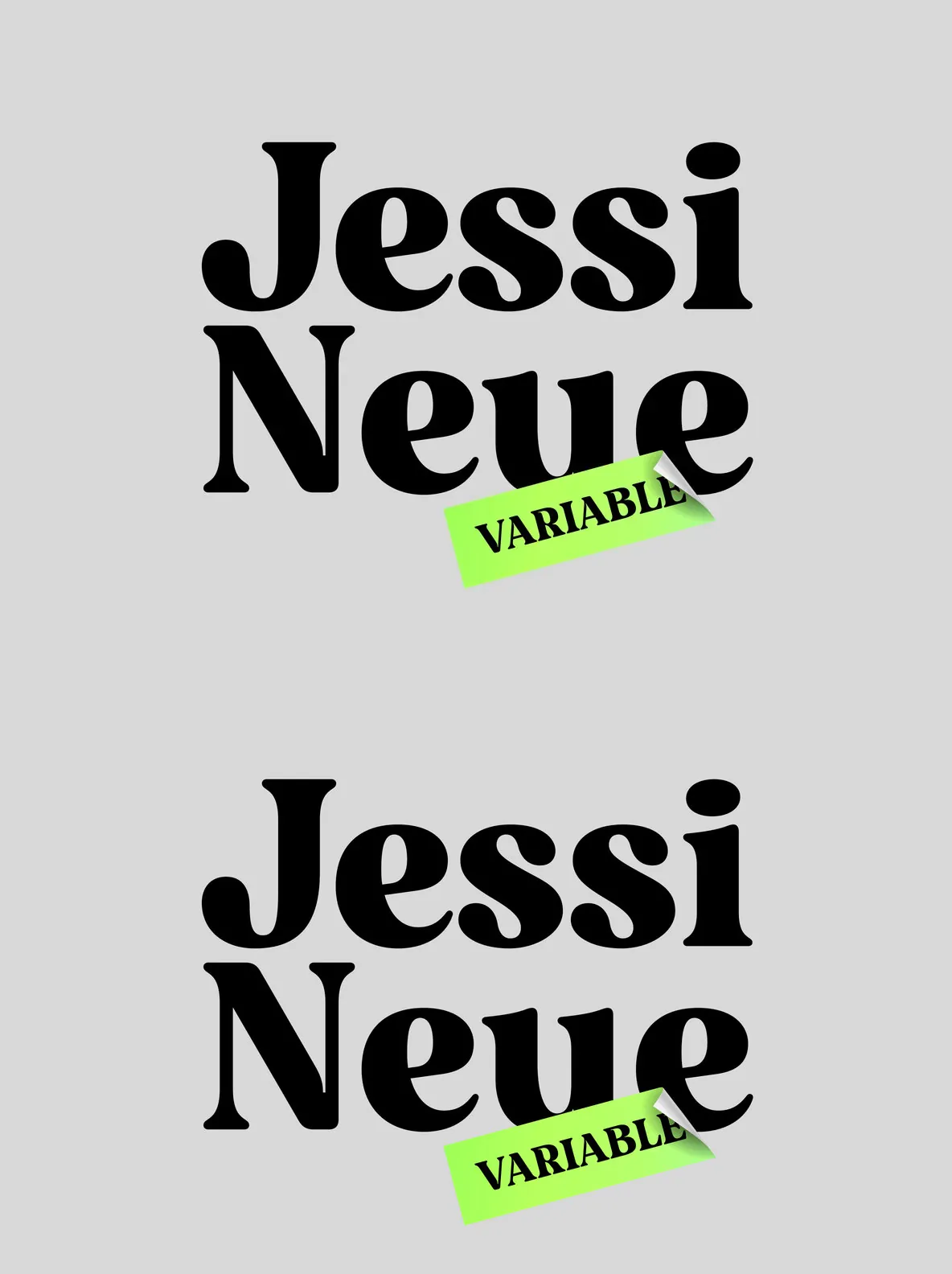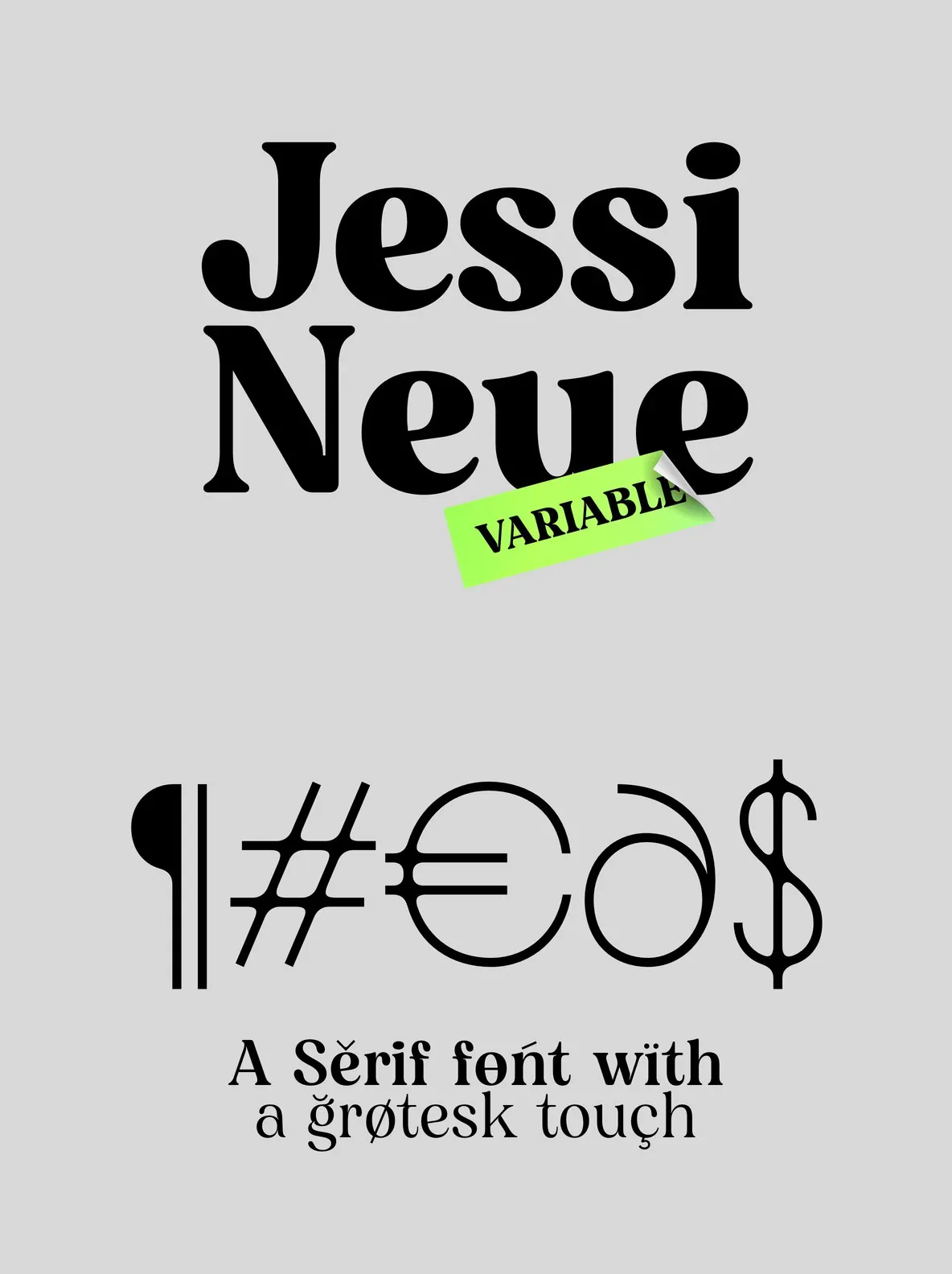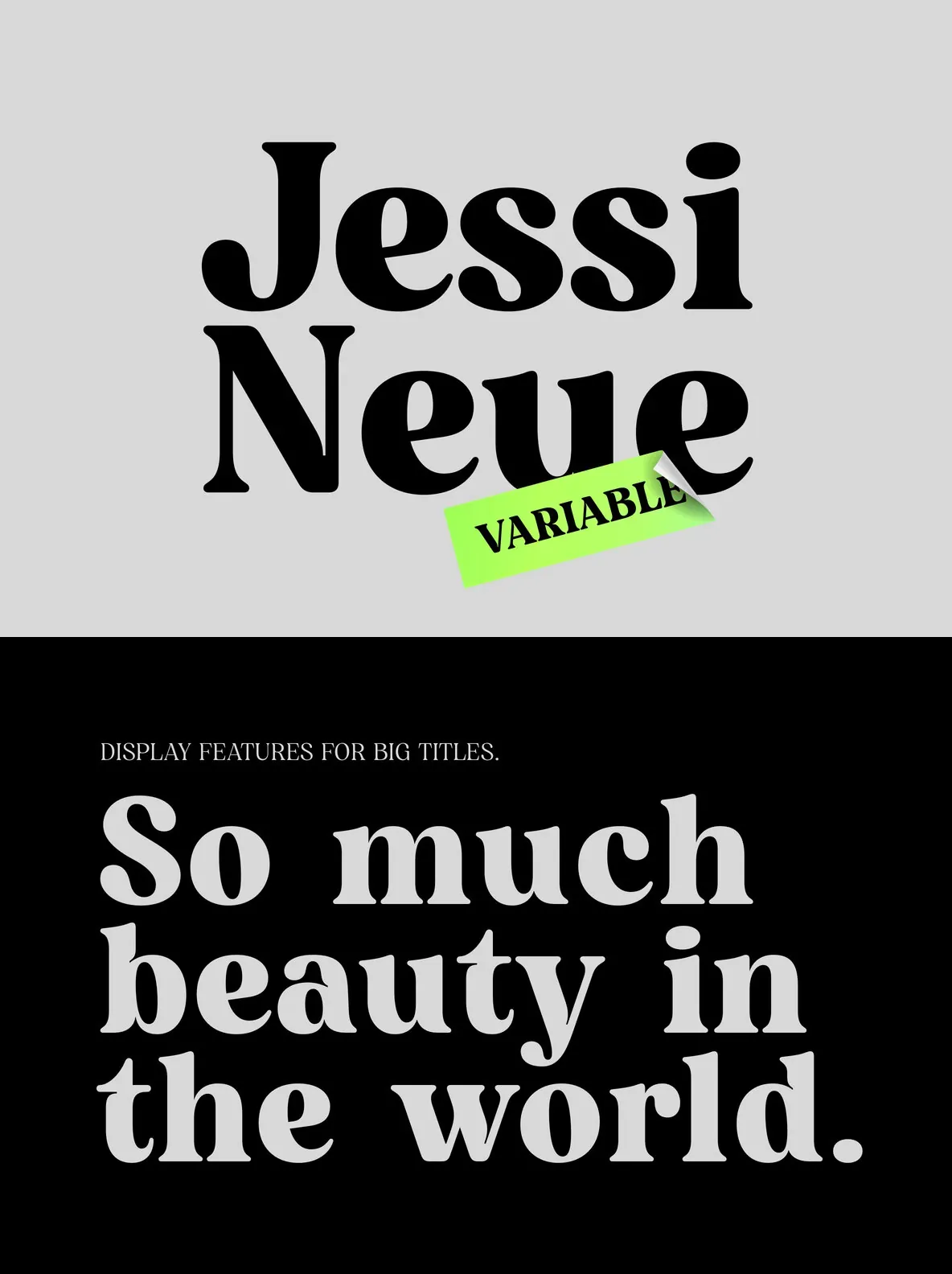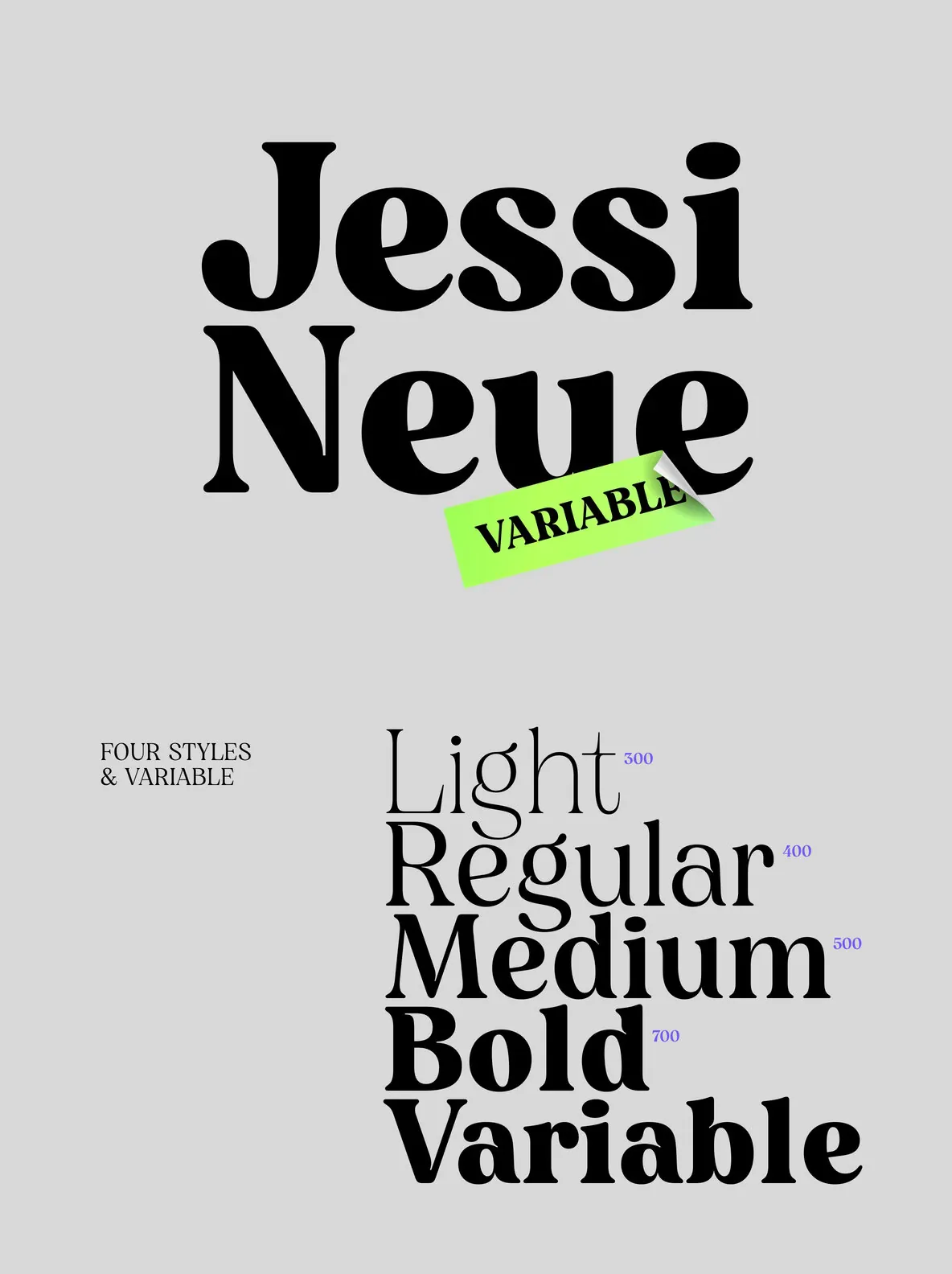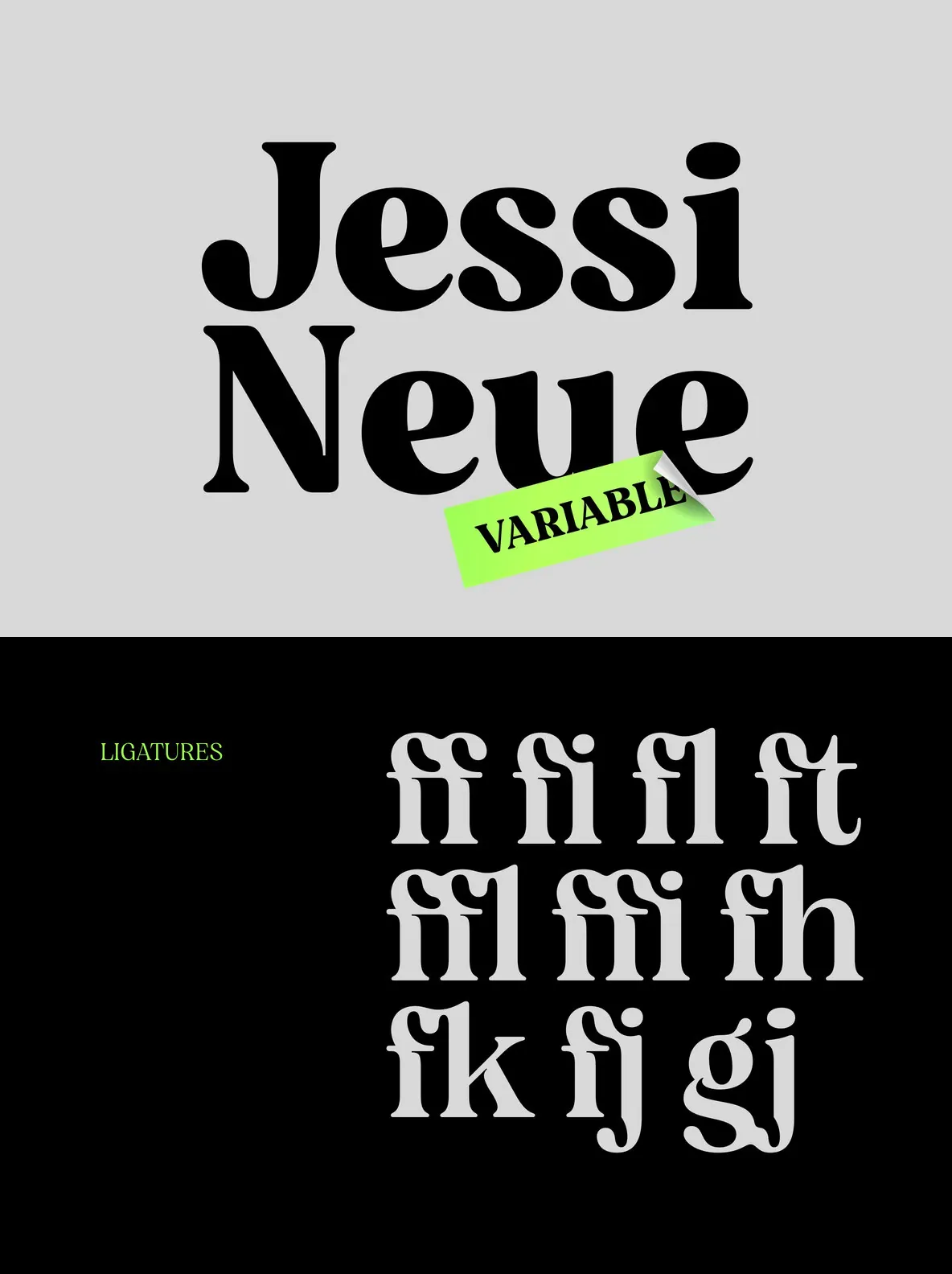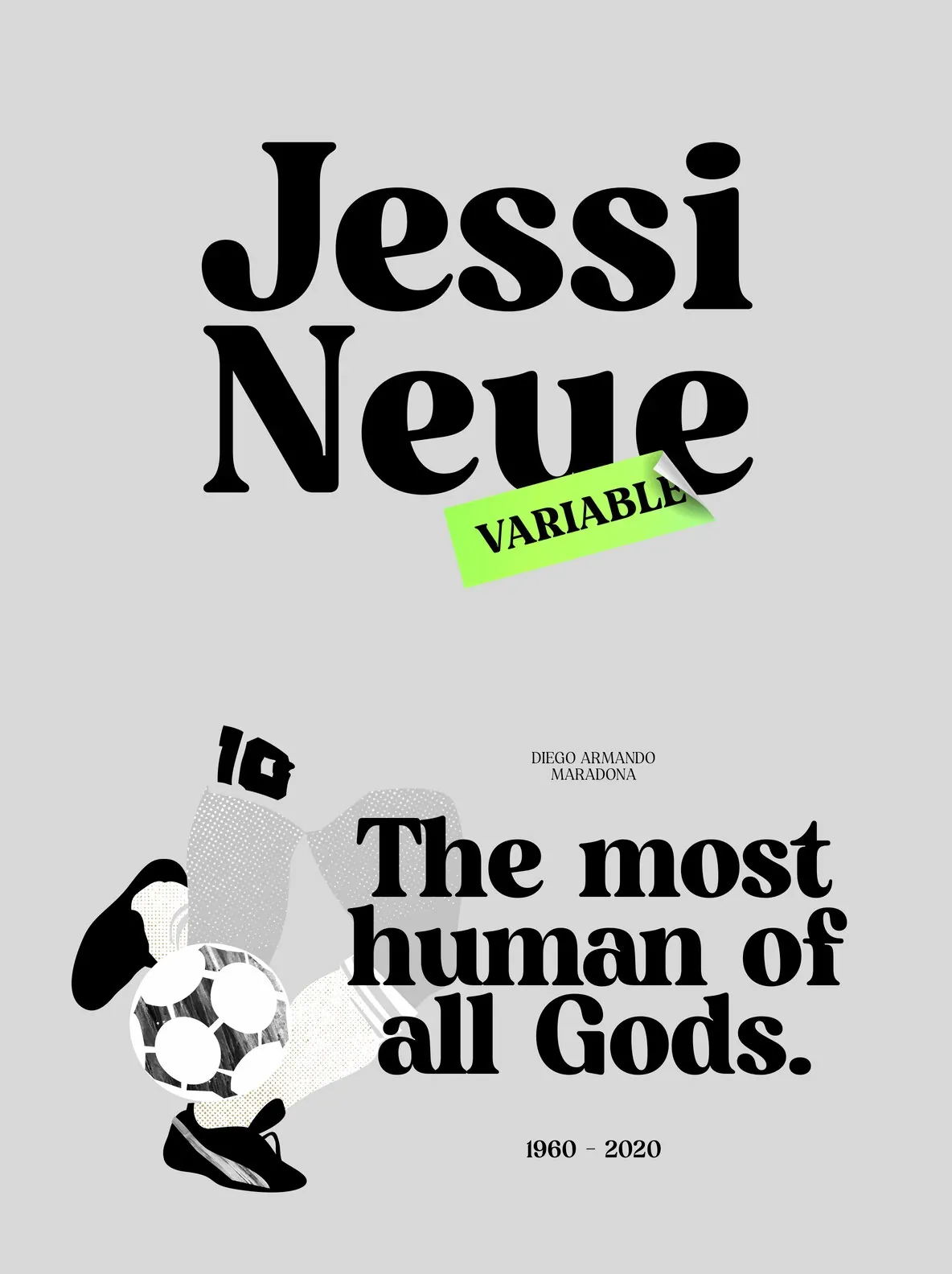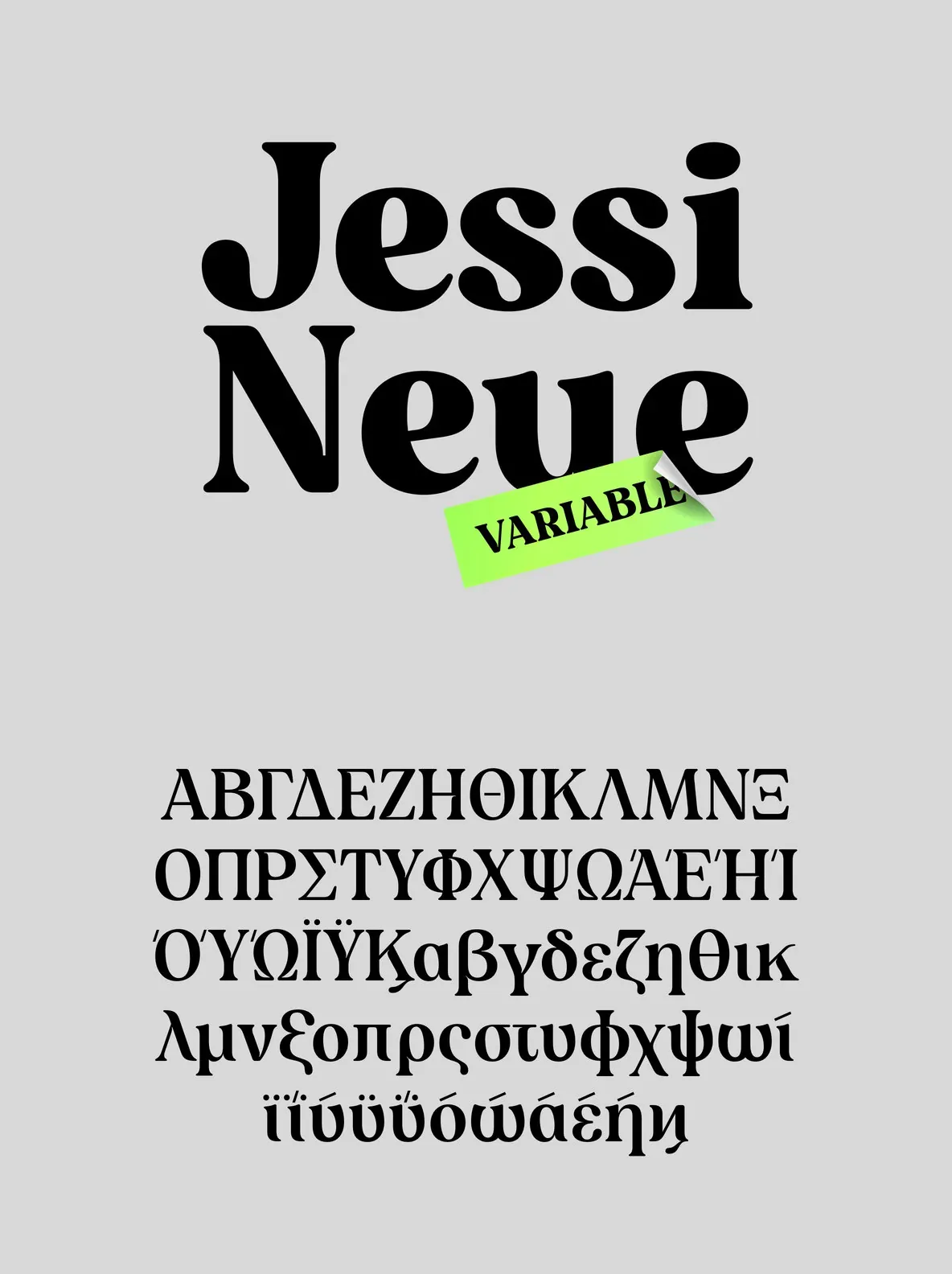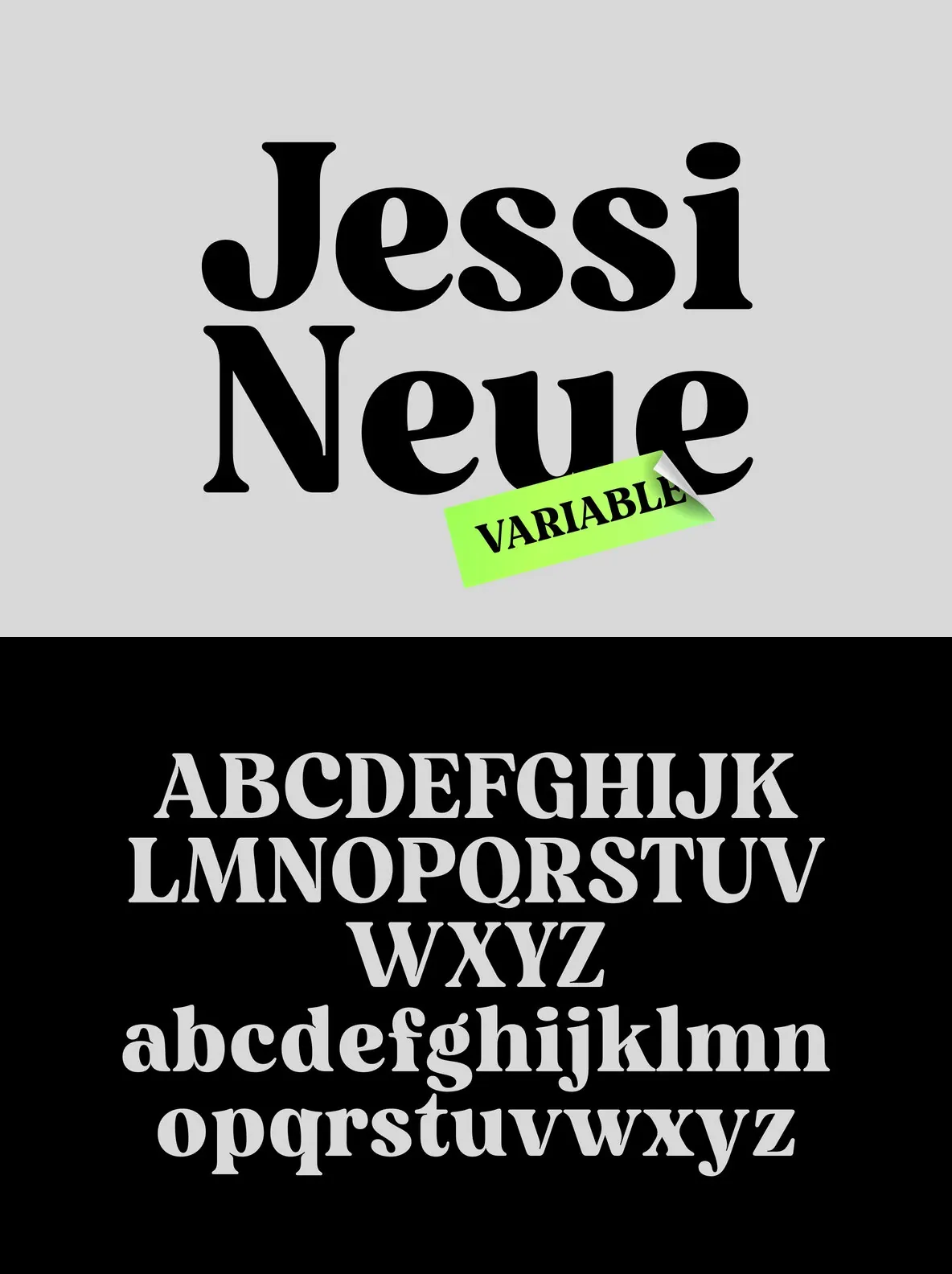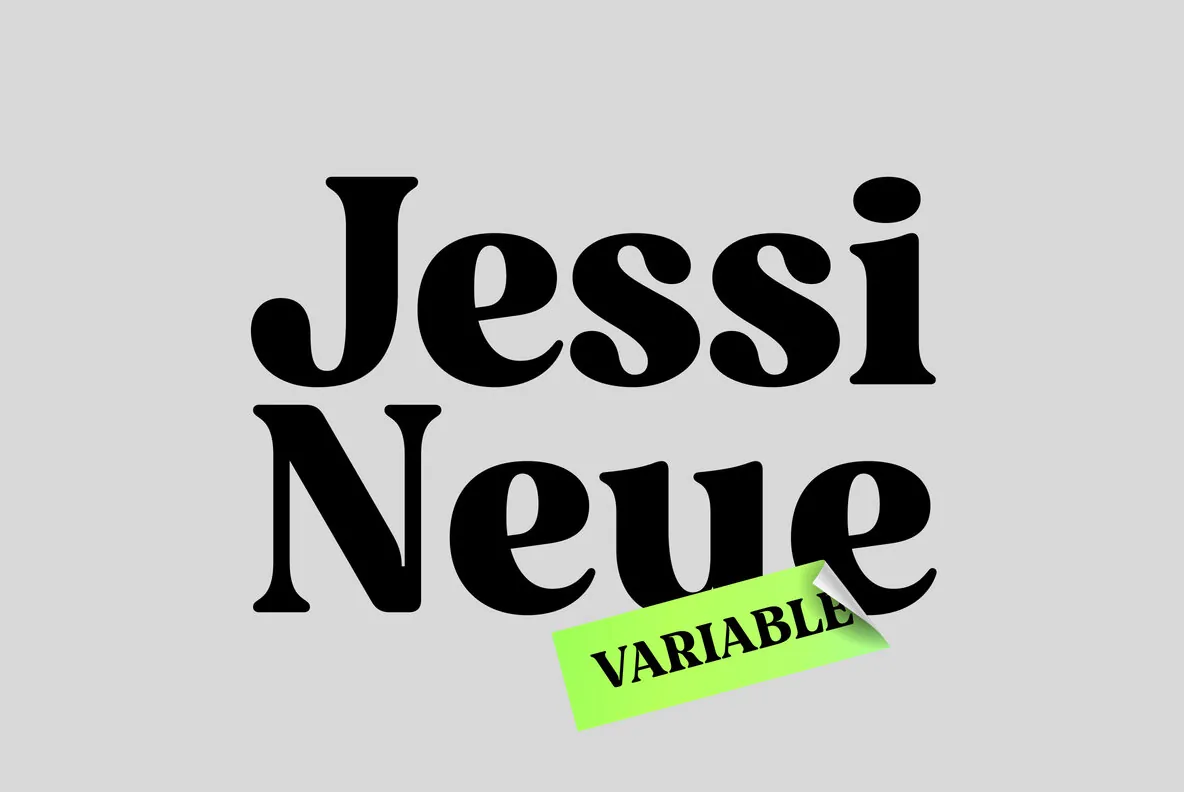
Jessie Neue: 1970s-Inspired Serif With Grotesque Elements
Jessie Neue blends the expressive spirit of 1970s serif typefaces with precise grotesque influences. This serif font offers a refined aesthetic through its distinctive ligatures and clean lines, making it suitable for a wide range of creative projects. Its versatility shines in both high-impact headlines and extended body text, presenting a strong choice for editorial design, branding, and digital media.
The typeface’s character set contains 667 glyphs, supporting Basic Latin, Western European, Central European, South Eastern European, Vietnamese, Pinyin, and Basic Greek. The collection includes four weights and a variable version, providing flexibility and creative range for designers. An italic style is planned for future release, further expanding the font’s creative possibilities.
Features:
Four distinct weights and a variable version for flexible design options
Ligatures create a refined and cohesive appearance
Grotesque characteristics provide modern adaptability
667 characters with extensive language support